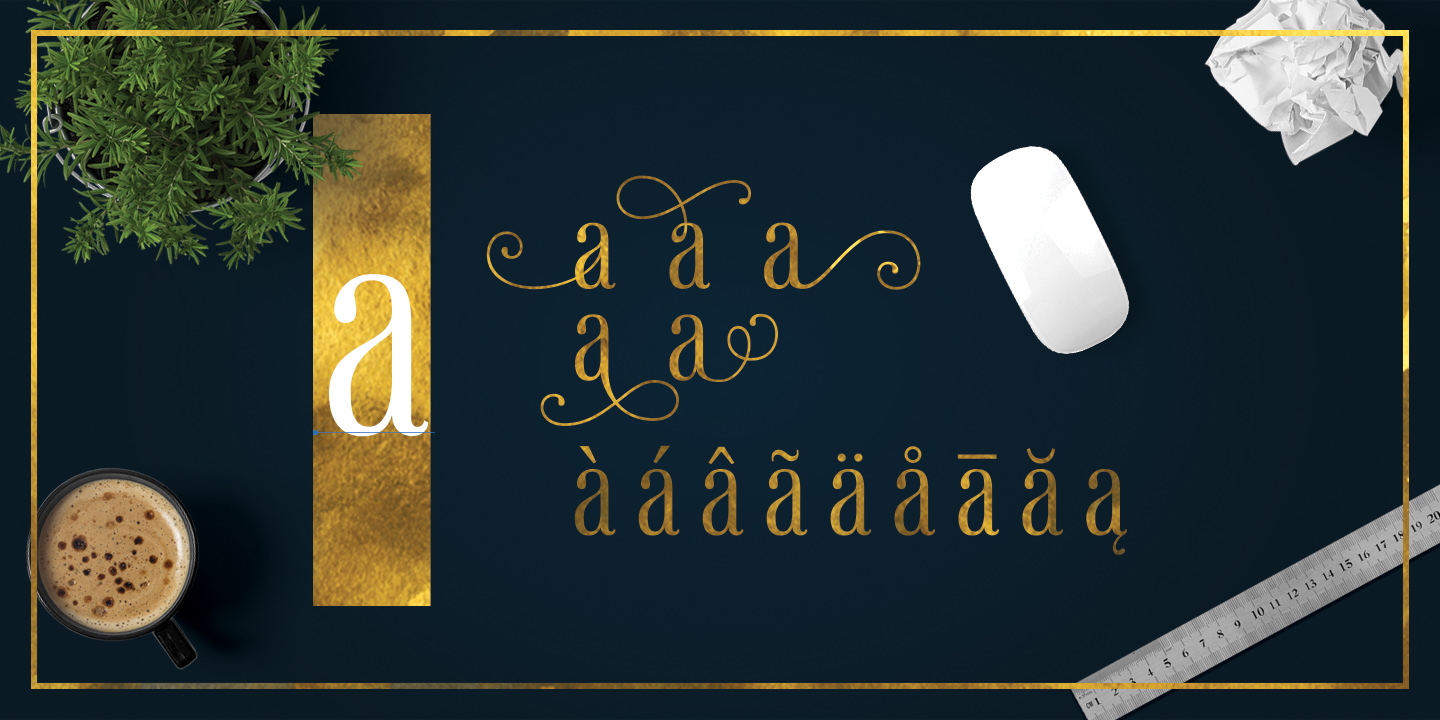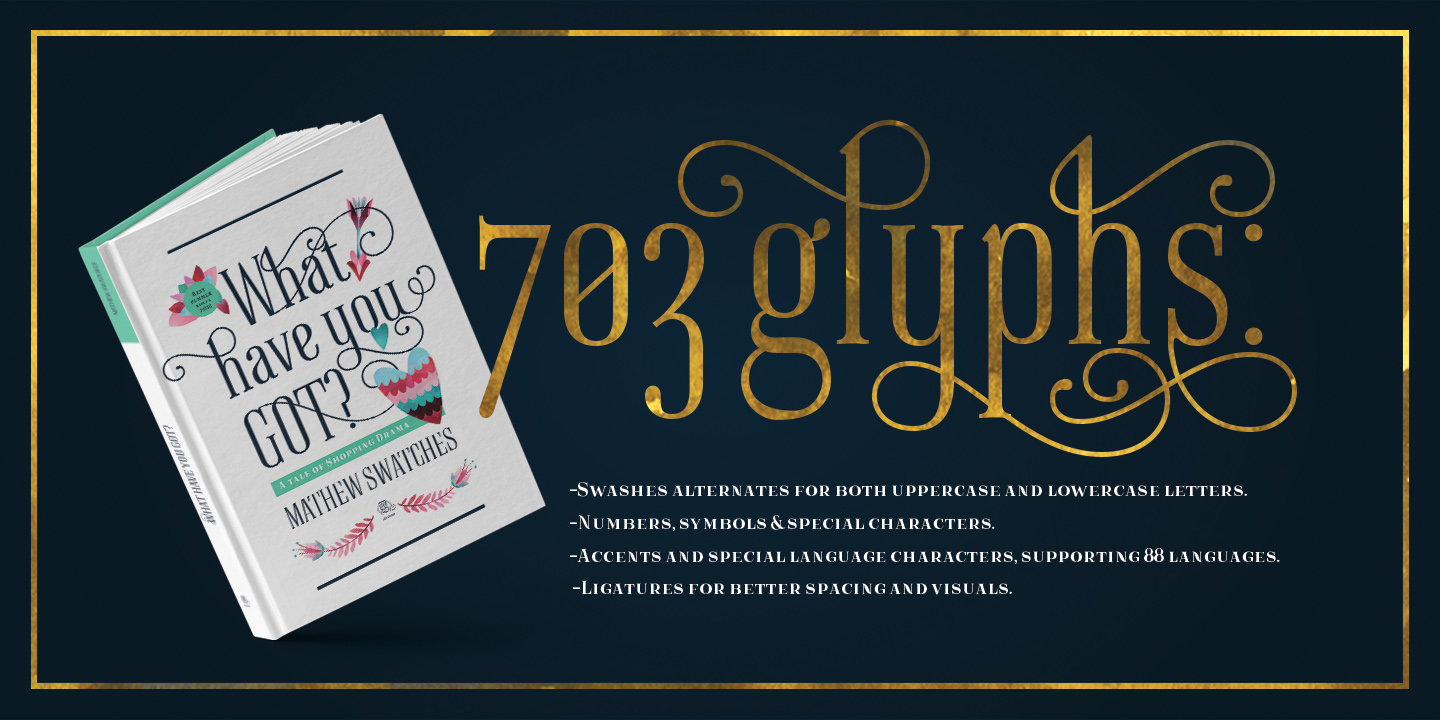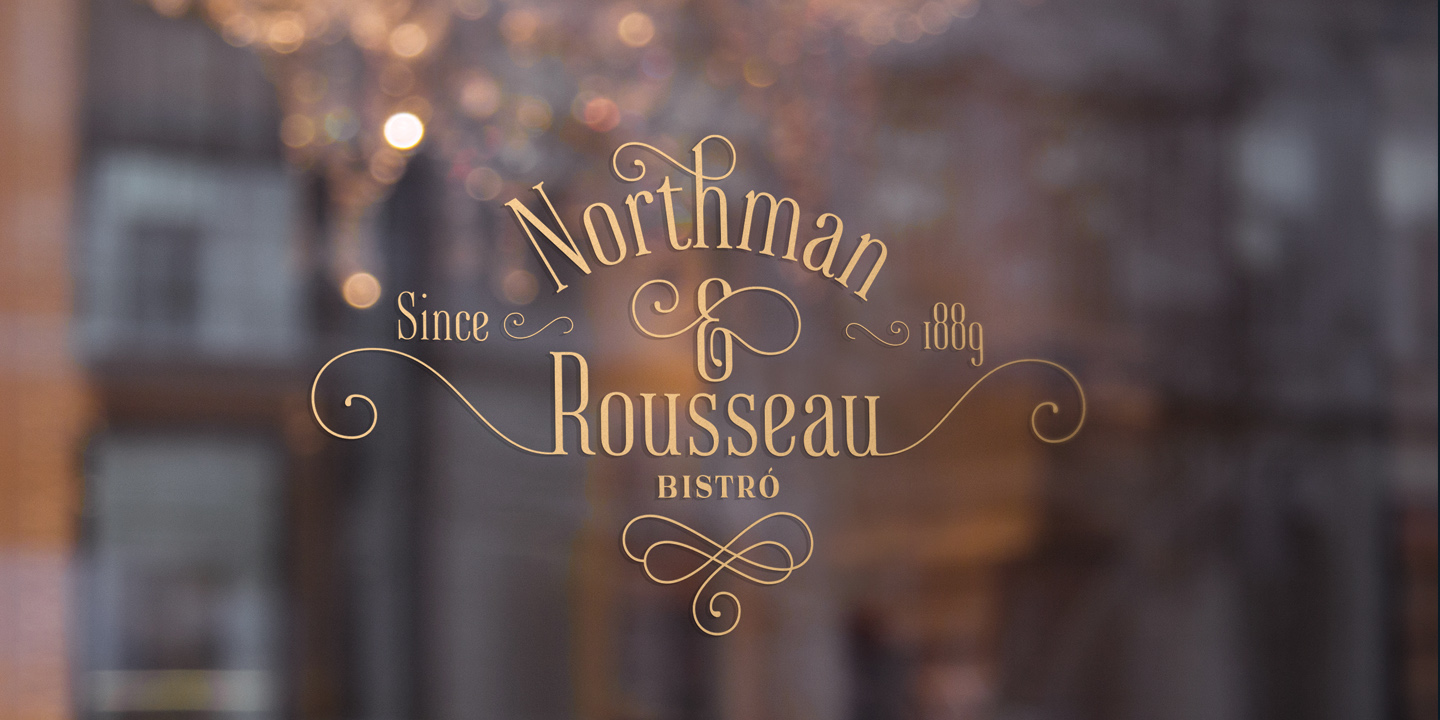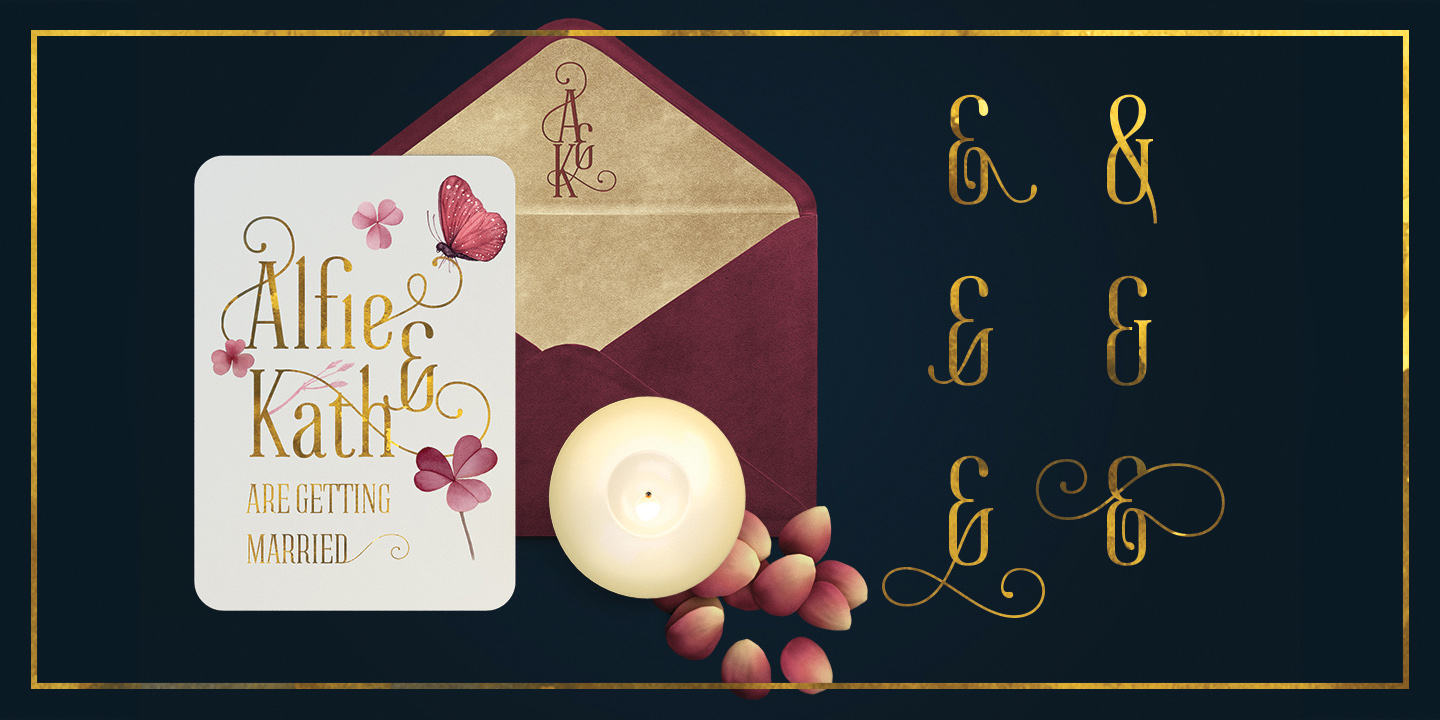
Based on my very first font creation, New Ayres keeps the same feel, but raised to high-quality level. Its long clean lines and soft curves merge old style and modern, giving a new meaning to timeless elegance. Perfect for titling; with at least five alternates per letter, the possibilities become endless. Choose the one better suited for your project and make your text stand out immediately! 703 glyphs take part in this font, including a large set of alternates, ligatures and swashes for you to choose from. With accents and special characters for languages, New Ayres supports 88 languages: Afrikaans, Albanian, German, Swiss German, Upper Sorbian, Asu, under Sorbian, Bemba, Bena, Norwegian Bokmal, Bosnian, Catalan, Czech, chiga, cornic, Creole Cape Verdean, Creole Mauritian, Croatian, Danish, embu, Slovak, Slovene, Spanish, Esperanto, Estonian, Euskera, Faroese, Filipino, Finnish, French, Rialan, scottish Gaelic, Galician, Greenlander, gusii, Hungarian, Indonesian, Irish, Icelandic, Italian, Kalenjin, Kamba, Kikuyu, Kinyarwanda, Kiroundi, kölsch, latvian, lithuanian, luo, luxembourgish, luyia, machame, makhuwa-meetto, makonde, malay, malagasy, maltese, manx, meru, Northern ndebele, nyankole, norwegian nynorsk, oromo, polish, portuguese, romeo, rombo, romanian, rwa, samburu, sango, sena, shena, shamble, Shona, rope, somali, swedish, swahili, taita, teso, Turkmen, vunjo, walser, zulu. This font is PUA encoded: this means each character has a unicode name, and you may access any of them through this codes. Open Type features on the open type file: easy access for alternates and ligatures! The download includes both .otf and .ttf files, so you may choose which one suits you better. With a strong personality, but yet adaptable into many styles, New Ayres is everything you are needing for your projects!!